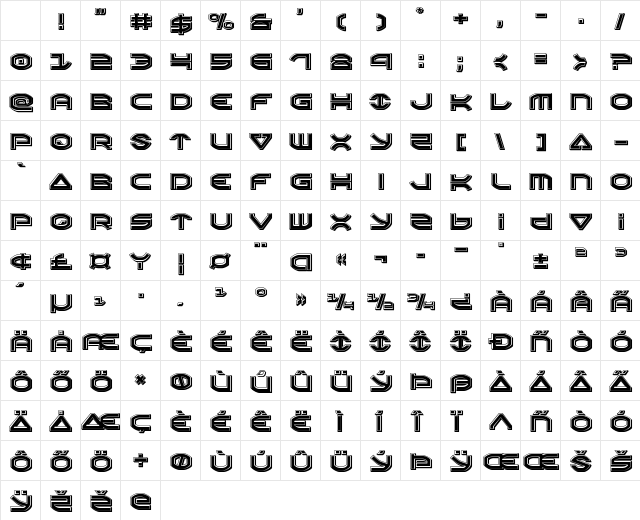
Oberon Bevel Regular
Design Context for Oberon Bevel
Oberon Bevel is a composed and adaptable typeface that performs quietly and consistently across a wide range of design contexts.
Pro Tip: Use Oberon Bevel in both headline and body roles to test its range before committing to a single application.